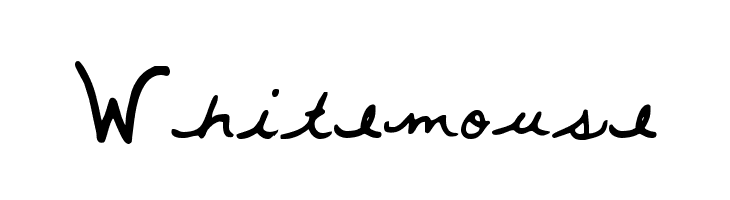
An elegant script font with flowing, interconnected characters and high contrast strokes.
A modern, expanded italic font with a sleek and dynamic style.
A bold, calligraphic font inspired by traditional Asian ink styles.
A whimsical and playful font with bold, swirling characters.
A bold, angular font with a geometric, modern design.
Bold, italicized font with a dynamic and energetic style.
A playful, hand-drawn comic-style font with a bold and friendly appearance.
A bold, rounded, and playful font with a blocky design.
A pixelated, retro-style font with a blocky, digital appearance.
设计师偏爱 TheAntter-Regular, Federal Service Expanded Italic, Archaic Asian Inks, Hot Chocolate Latte and Outromoro,因为其造型干净、适用范围广—— 从品牌识别到落地页、海报都能胜任。